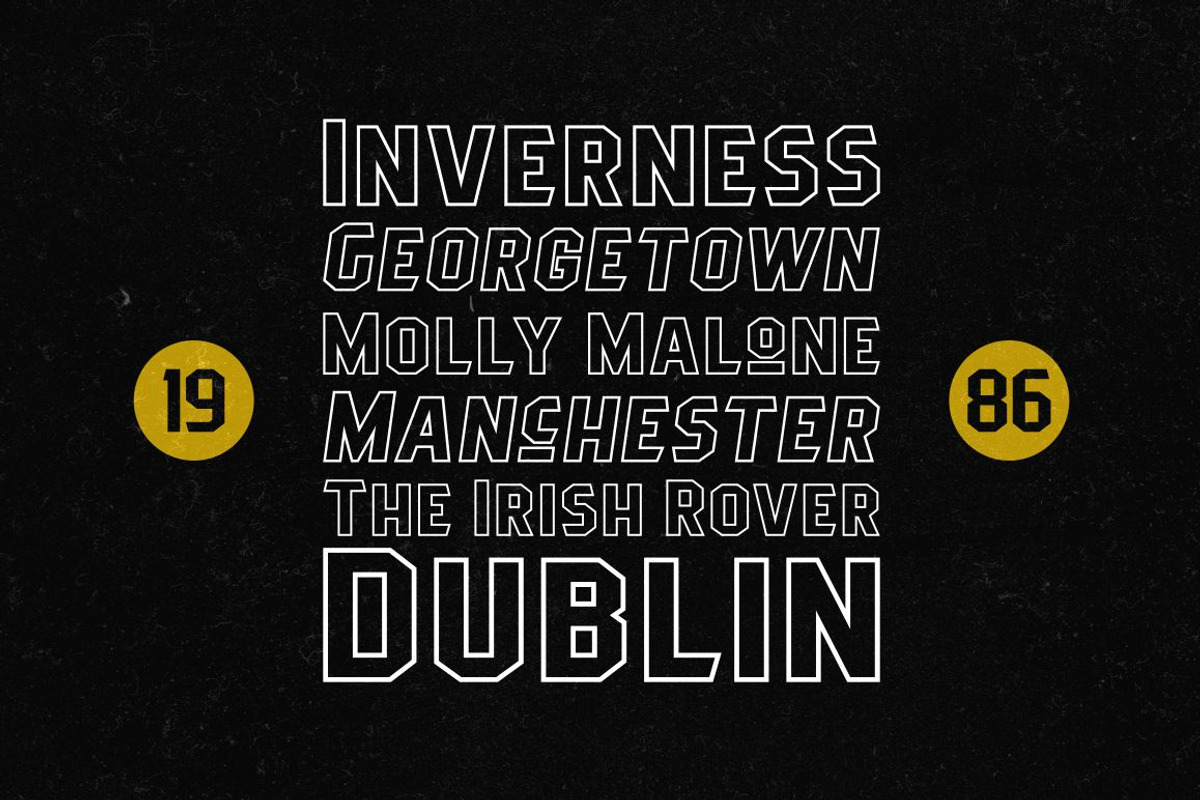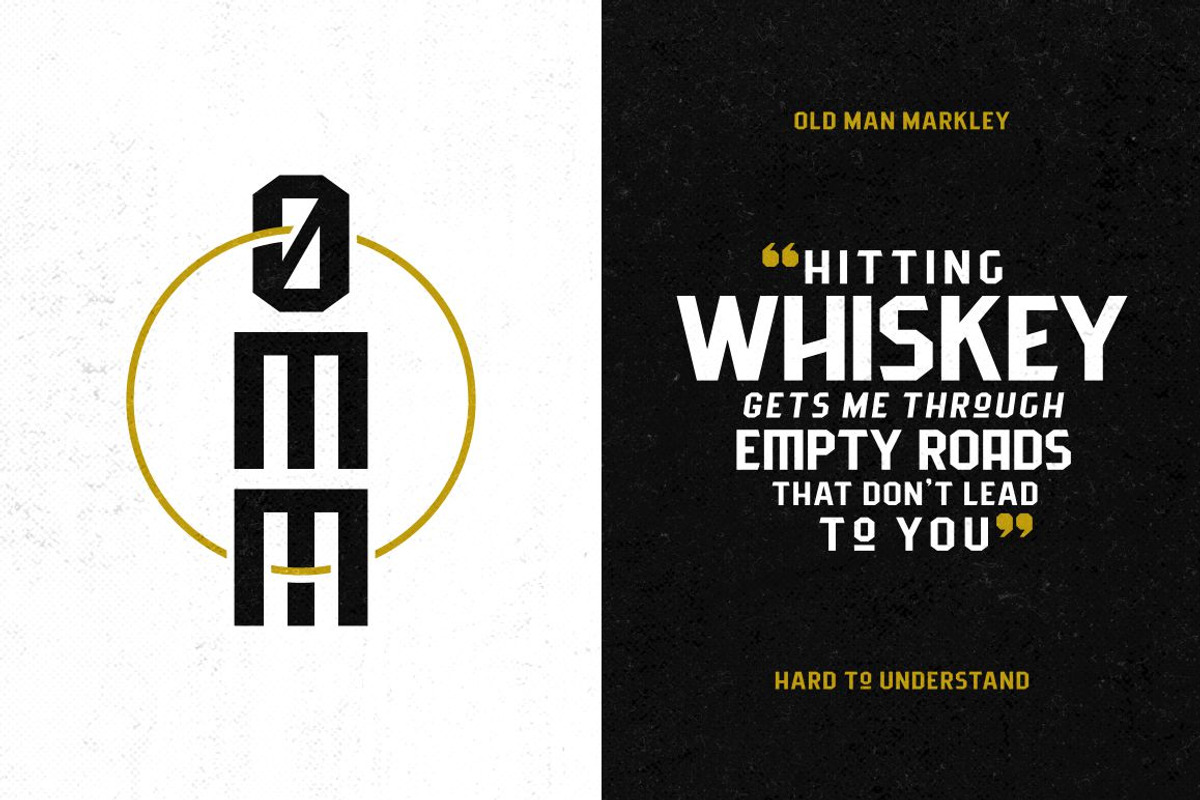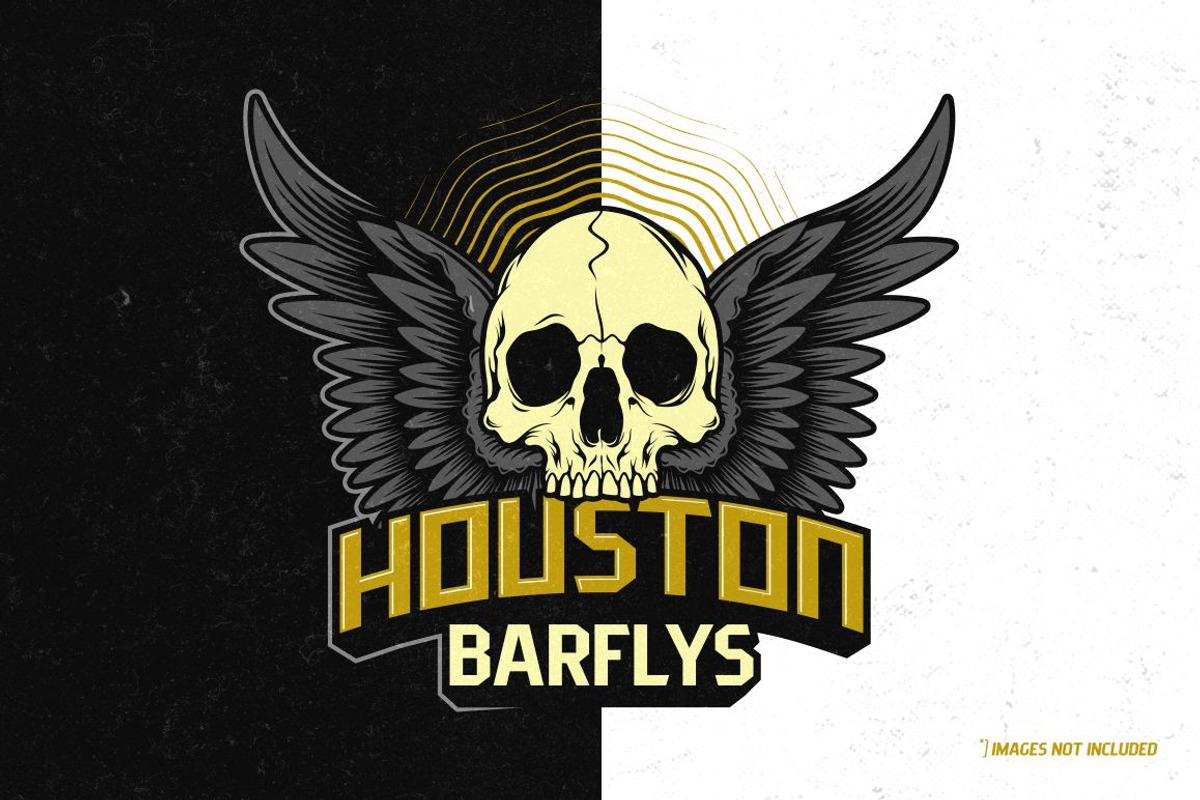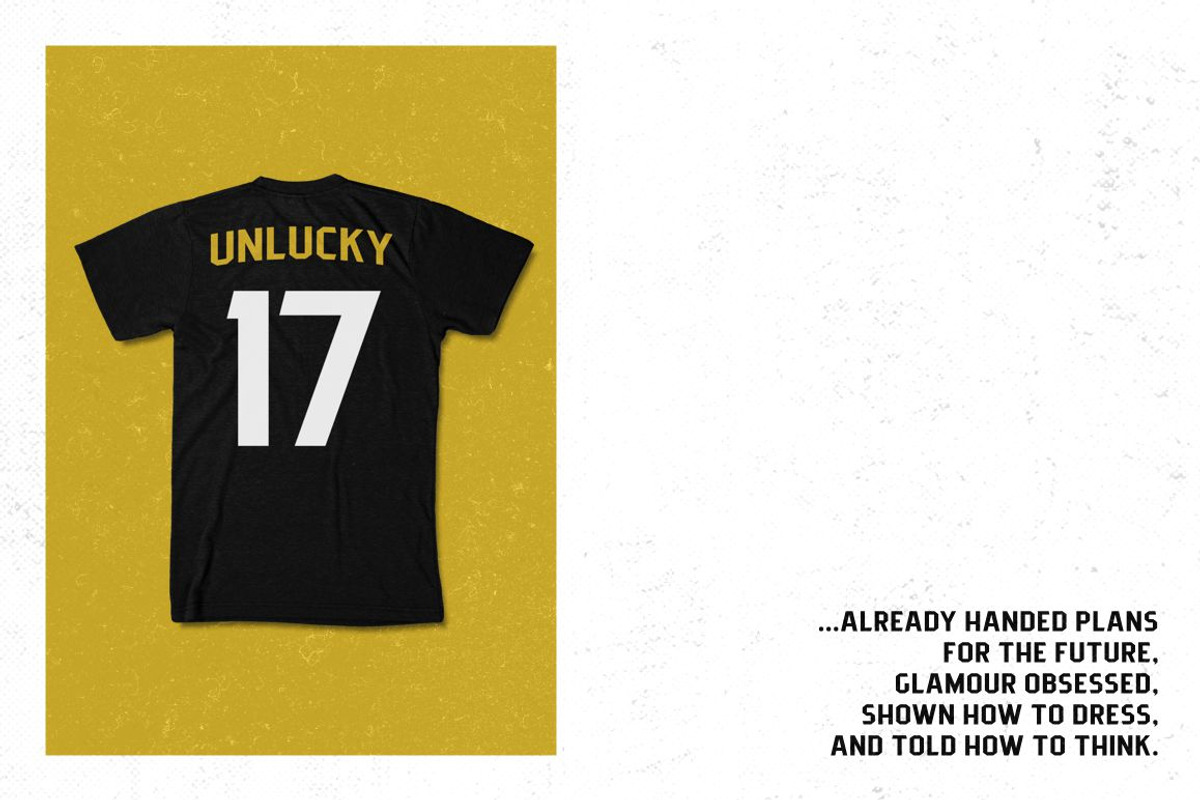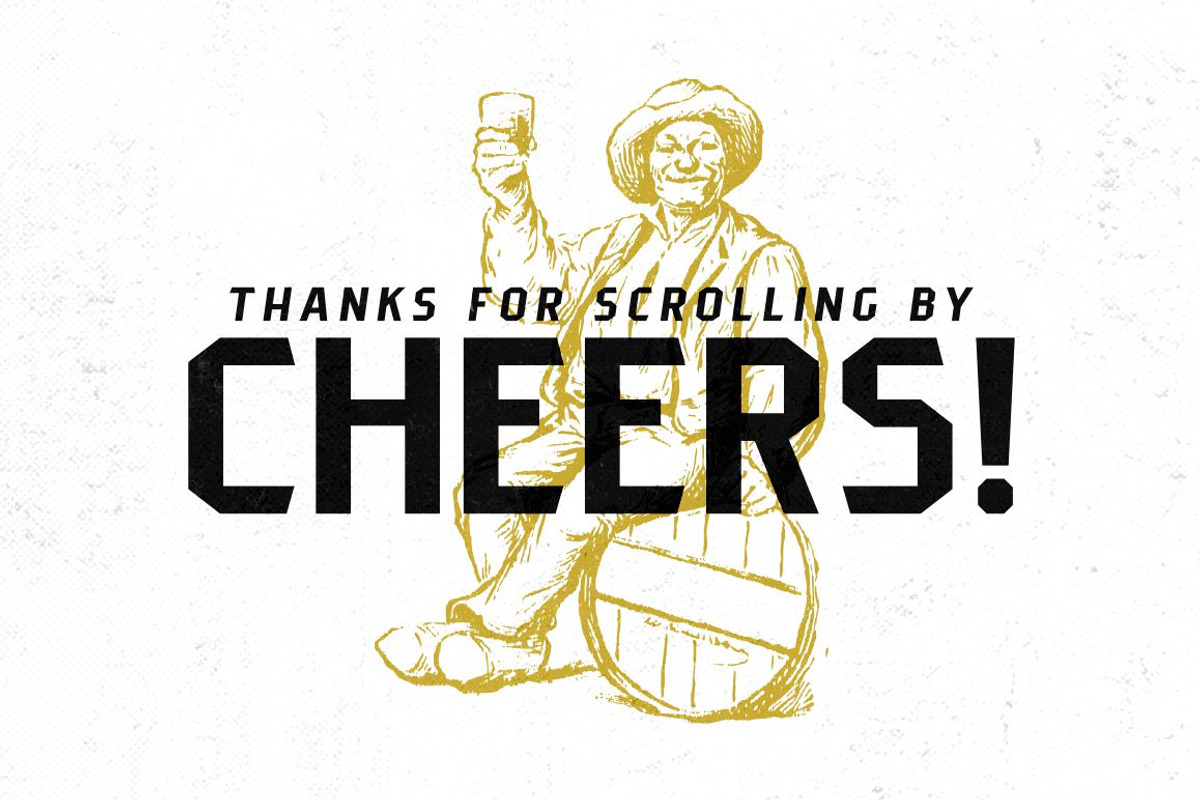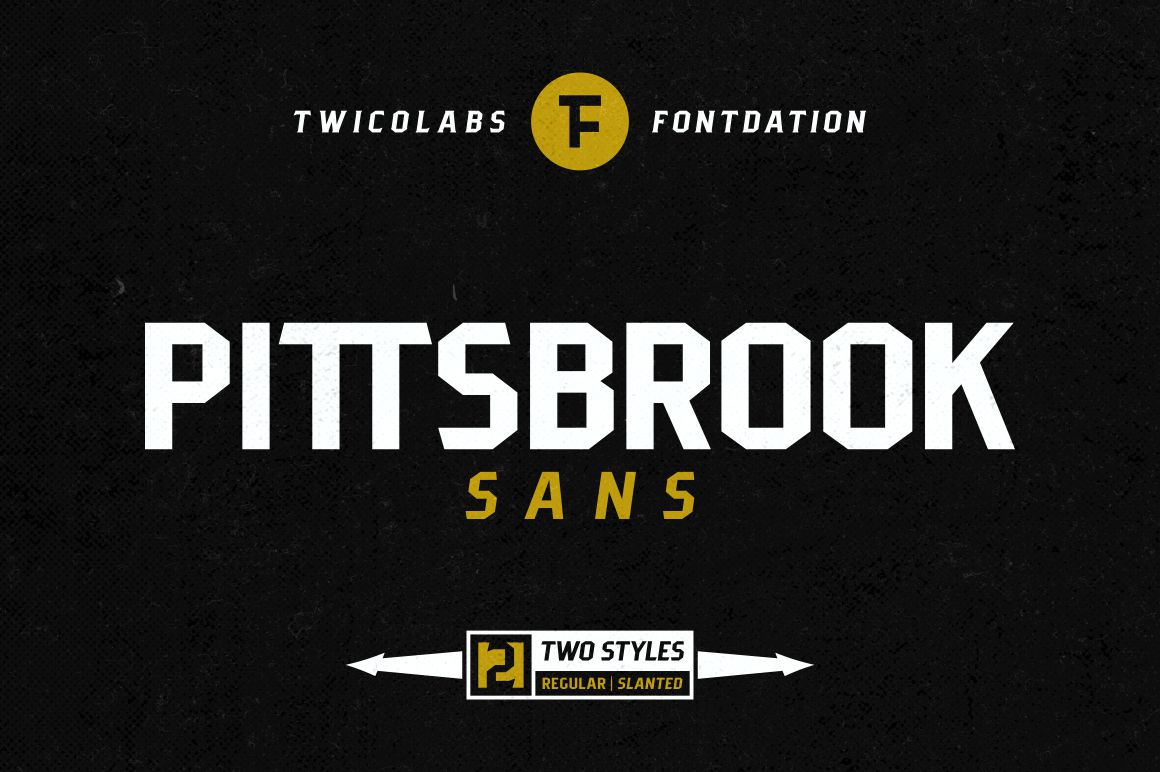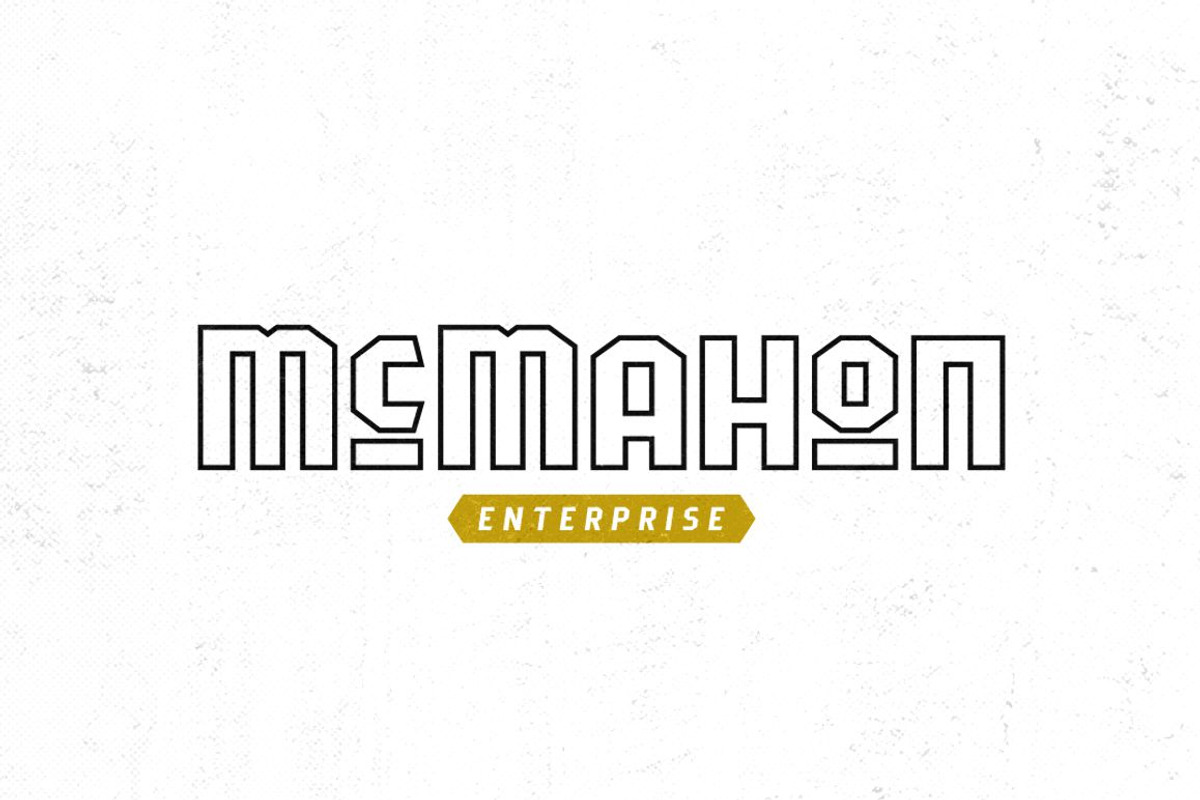
Pittsbrook Sans | 4 Fonts
Introducing our latest typeface; Pittsbrook Sans. A classic typeface that inspired by the letters used in old advertisement and packagings. Its rigid shape gives you strong, sharp and blocky feelings, no curves were harmed in the making of this typeface. Packed with 400+ consistently mouse-crafted characters, we spent a lot of attention to every details. Suits best for any classic/vintage design project, such as E-Sport logo, liquor/food label, packaging, headline, space-filler, logotype, typographic quote writings, etc.
- Standard upper and lowercase characters,
- Numeral and punctuations (OpenType Standard encoding),
- Multilingual character supports (Afrikaans, Albanian, Catalan, Croatian, Czech, Danish, Dutch, English, Estonian, Finnish, French, German, Hungarian, Icelandic, Italian, Lithuanian, Maltese, Norwegian, Polish, Portuguese, Slovenian, Spanish, Swedish, Turkish, Zulu),
- OpenType features such as alternate characters, stylistic sets, ligatures, etc,
- Three styles: Regular, Slanted and Outline,